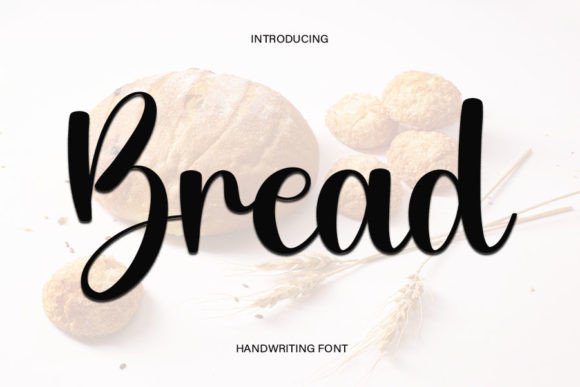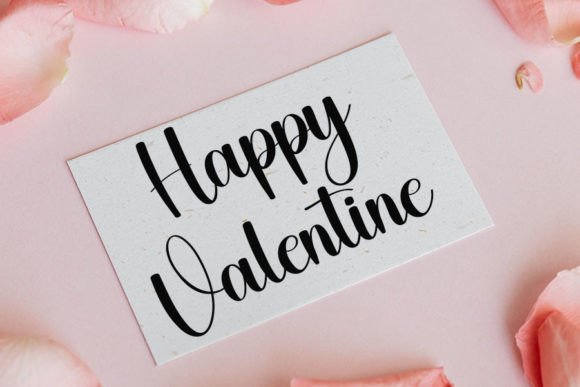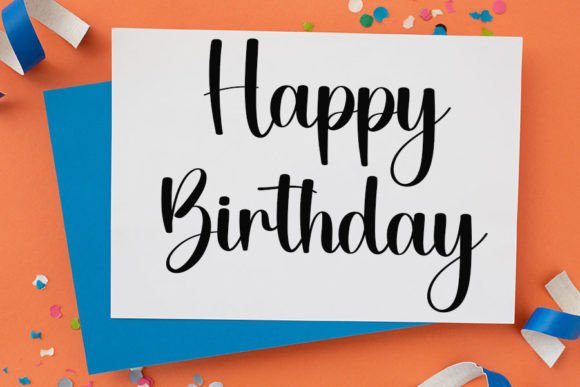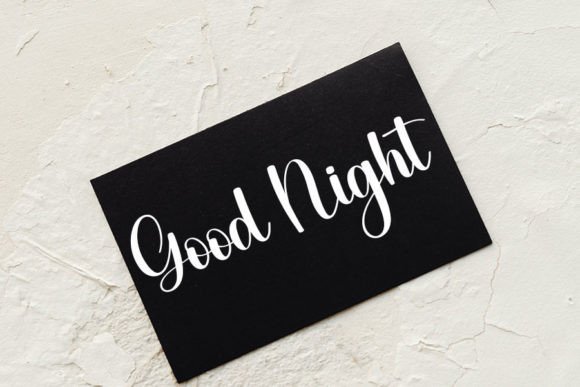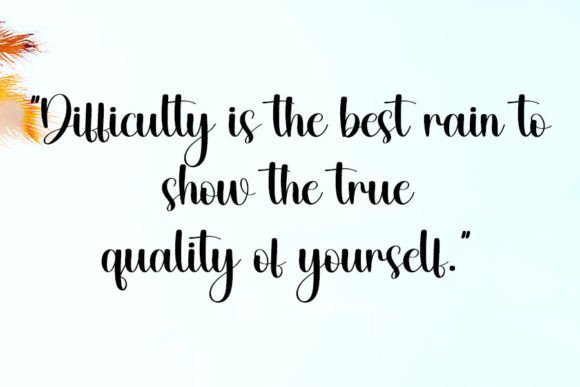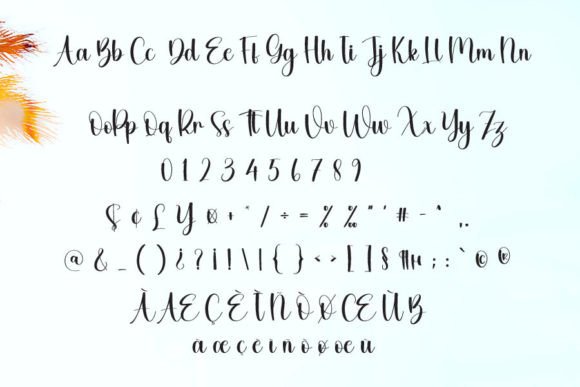
Bread
About Bread
Bread is a simple and neat handwritten font. This versatile font has a wide spectrum of applications ranging from greeting cards to headlines and is guaranteed to add a natural feel to your next project!